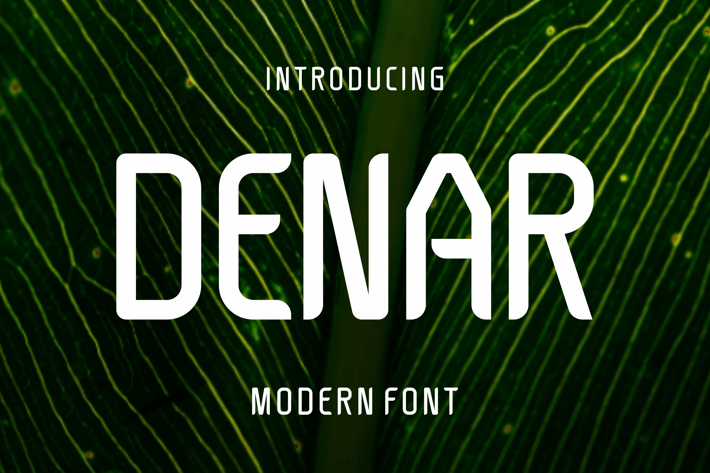
Denar - Modern Font
Perfectly suited on print/screen. itβs perfect for Branding, name card, poster, logo, magazine,
cover, banner, t-shirt and headers, or even large-scale artwork.